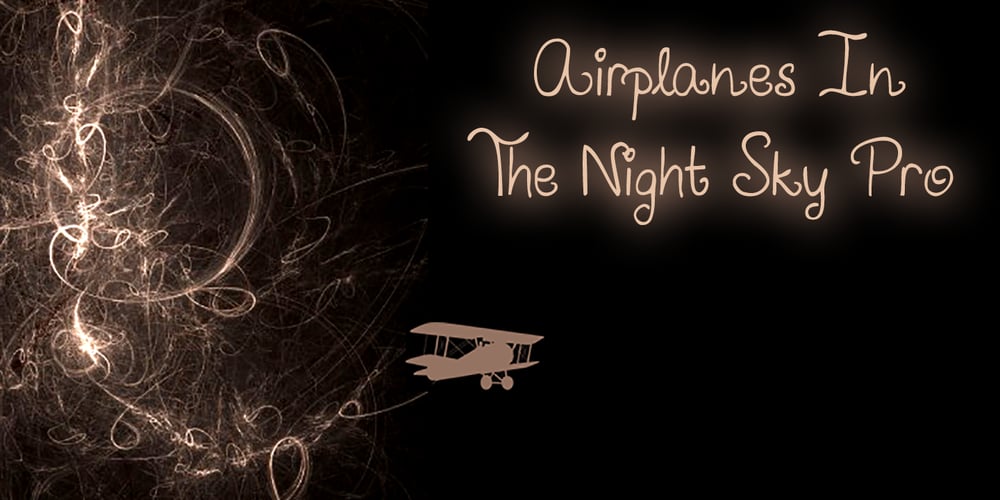
Airplanes In The Night Sky Pro Font Family was designed by Roger S. Nelsson, Kimberly Geswein and published by CheapProFonts. Airplanes In The Night Sky Pro contains 1 styles and family package options. Couldn’t you really use a wish right now? Girly. Swirly. Quirky. And utterly adorable. This Pro version of one of Kimberlys latest cutesy handwriting fonts has received lots of corrections and tweaks to the outlines – to remove autotracing artefacts, stroke width inconsistencies and create a better flow. Finally the character set was completed and expanded. Job done! Back to stargazing.. ALL fonts from CheapProFonts have very extensive language support: They contain some unusual diacritic letters (some of which are contained in the Latin Extended-B Unicode block) supporting: Cornish, Filipino (Tagalog), Guarani, Luxembourgian, Malagasy, Romanian, Ulithian and Welsh. They also contain all glyphs in the Latin Extended-A Unicode block (which among others cover the Central European and Baltic areas) supporting: Afrikaans, Belarusian (Lacinka), Bosnian, Catalan, Chichewa, Croatian, Czech, Dutch, Esperanto, Greenlandic, Hungarian, Kashubian, Kurdish (Kurmanji), Latvian, Lithuanian, Maltese, Maori, Polish, Saami (Inari), Saami (North), Serbian (latin), Slovak(ian), Slovene, Sorbian (Lower), Sorbian (Upper), Turkish and Turkmen. And they of course contain all the usual “western” glyphs supporting: Albanian, Basque, Breton, Chamorro, Danish, Estonian, Faroese, Finnish, French, Frisian, Galican, German, Icelandic, Indonesian, Irish (Gaelic), Italian, Northern Sotho, Norwegian, Occitan, Portuguese, Rhaeto-Romance, Sami (Lule), Sami (South), Scots (Gaelic), Spanish, Swedish, Tswana, Walloon and Yapese.